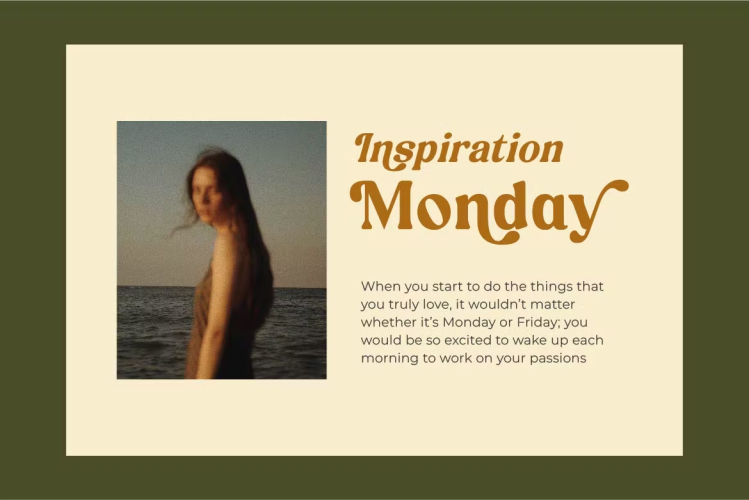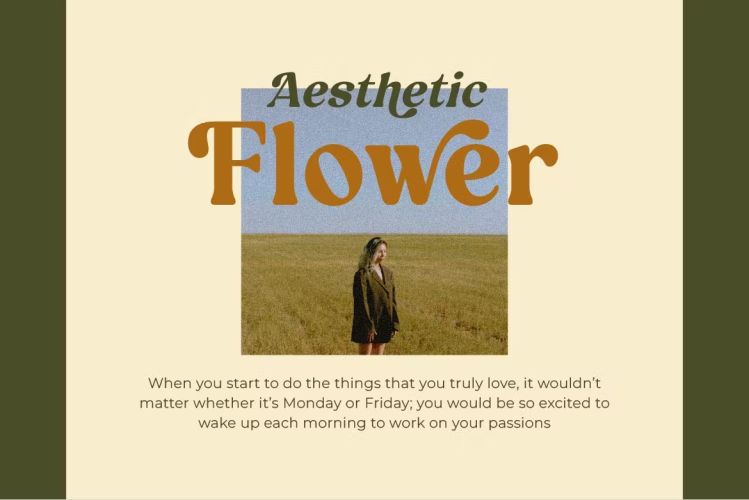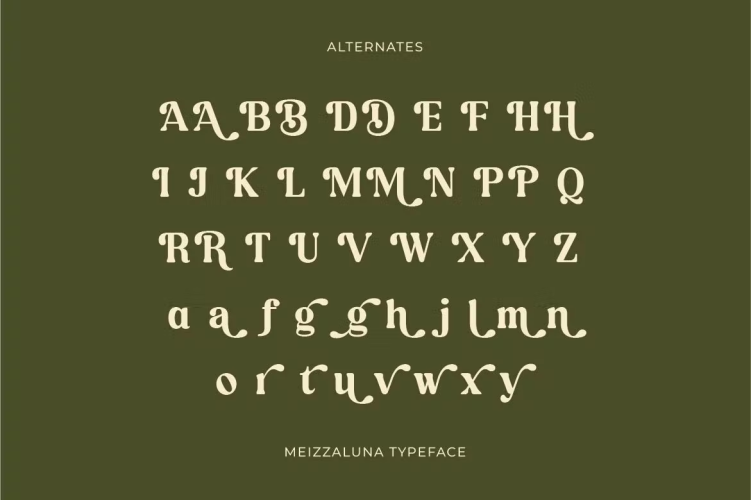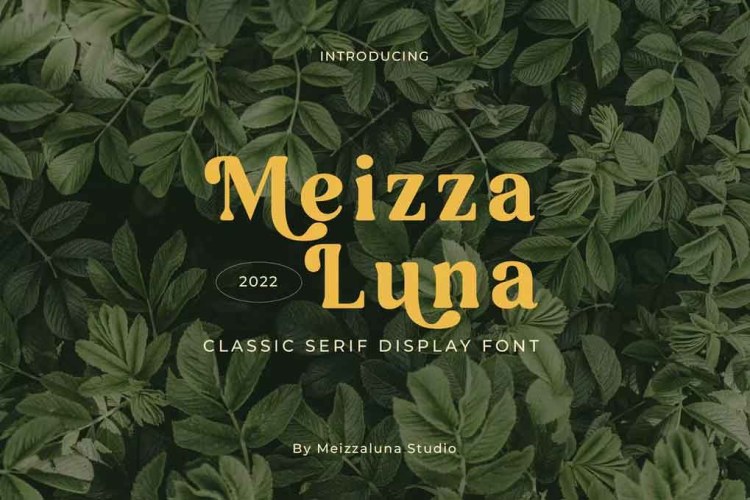
Meizzaluna Font
Meizzaluna Font is a set of upper & lowercase serif characters which includes a large range of punctuation glyphs, numerals, and multilingual support. A full set of stylistic alternates for lowercase characters are also available.
Where Meizzaluna Font works best
Reports, white papers and book interiors hold the eye longer when the text face has real serifs; Meizzaluna Font keeps that rhythm without looking old-fashioned.
Food, spirits and cosmetics brands lean on serif wordmarks to suggest age and care. Meizzaluna Font gives that signal at wordmark size.
Set Meizzaluna Font for the body of an award or a diploma and keep the recipient name in a script; the pairing is what makes a document feel official.
What kind of work does Meizzaluna Font suit?
It sits in the Serif Fonts group and reads as meizzaluna, professional, serif, serif fonts. That makes it a candidate wherever those qualities help: headings, packaging, social graphics and brand work. Set it at the size you plan to use before deciding.